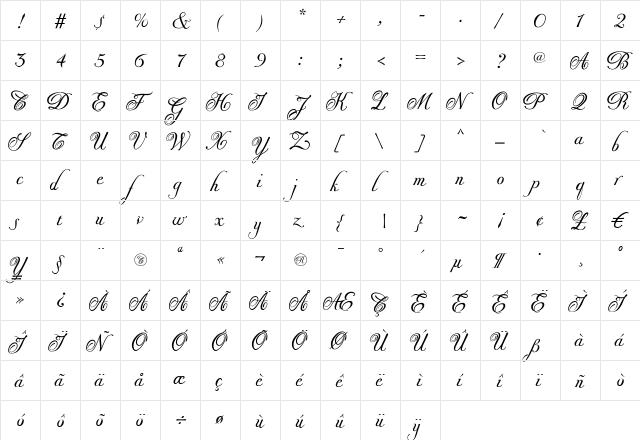
Donna Bodoni Aa Script Regular
Design Context for Donna Bodoni Aa Script Typeface
Donna Bodoni Aa Script flows with the natural rhythm of handwritten lettering, making it ideal for designs that call for warmth and personal expression.
Font Pairing: Combine Donna Bodoni Aa Script with a simple geometric sans for maximum contrast — the tension between flowing curves and clean structure is a classic typographic pairing.
Pro Tip: Pair Donna Bodoni Aa Script with a clean sans-serif for supporting text. The contrast between fluid script and geometric structure creates an elegant typographic hierarchy.